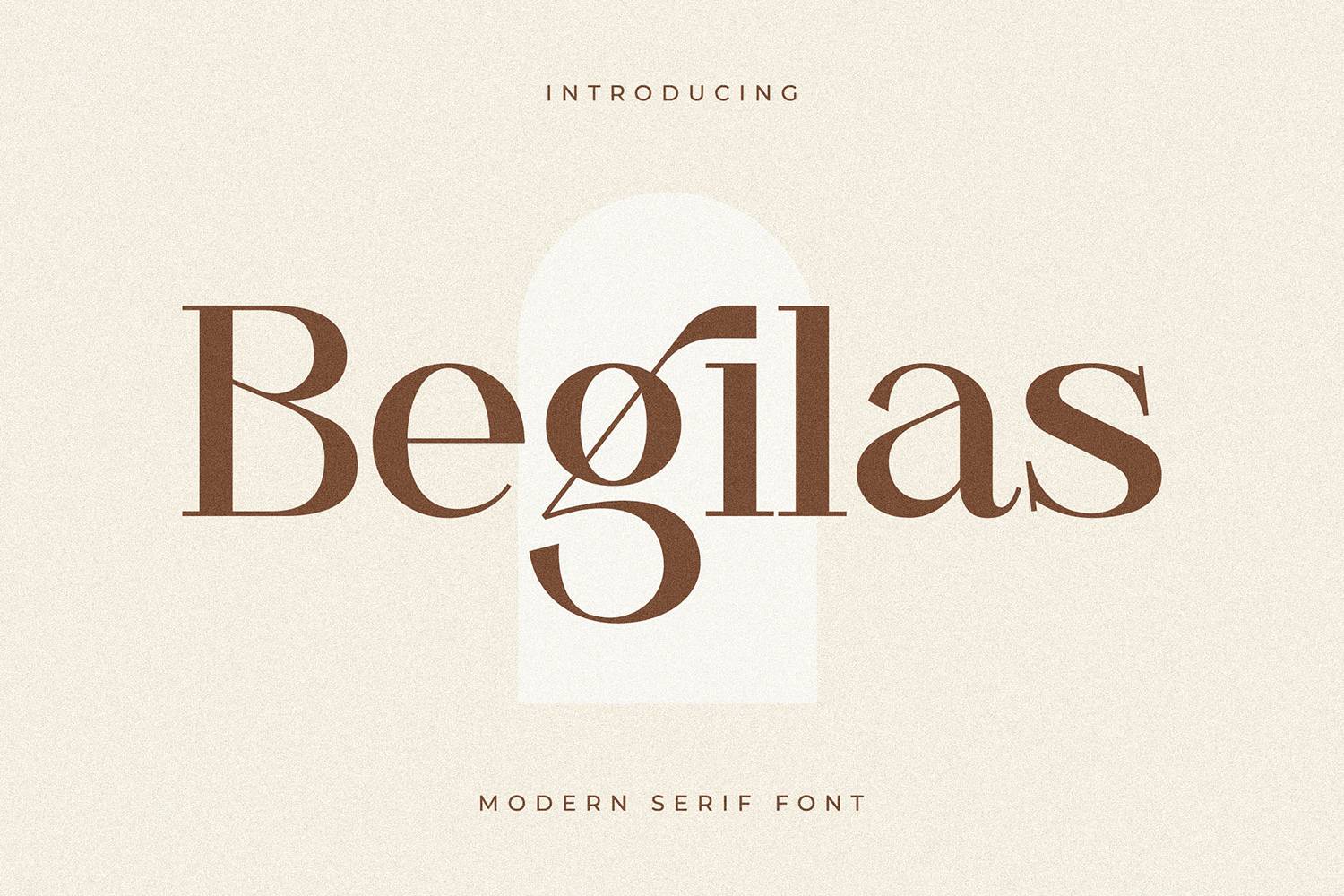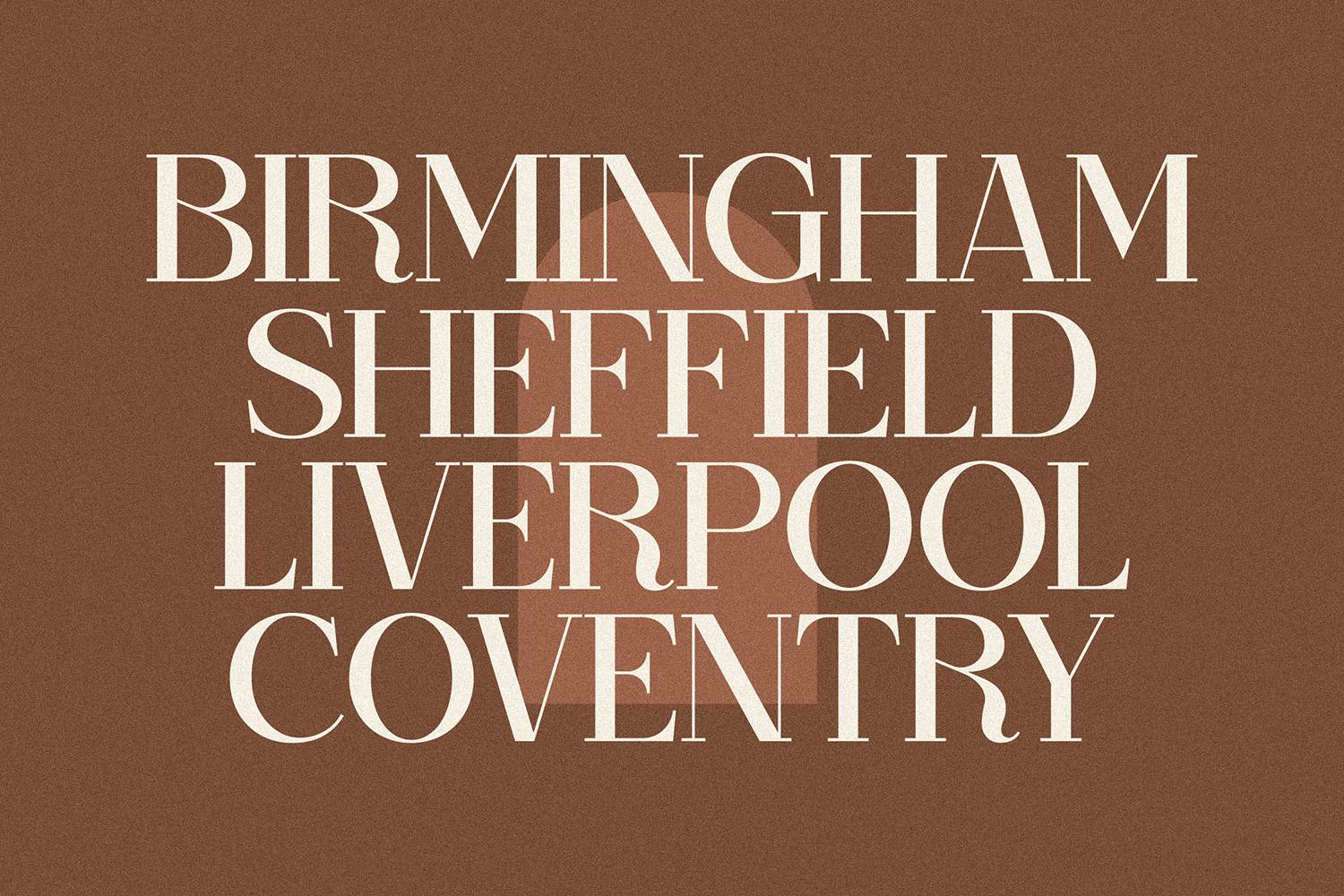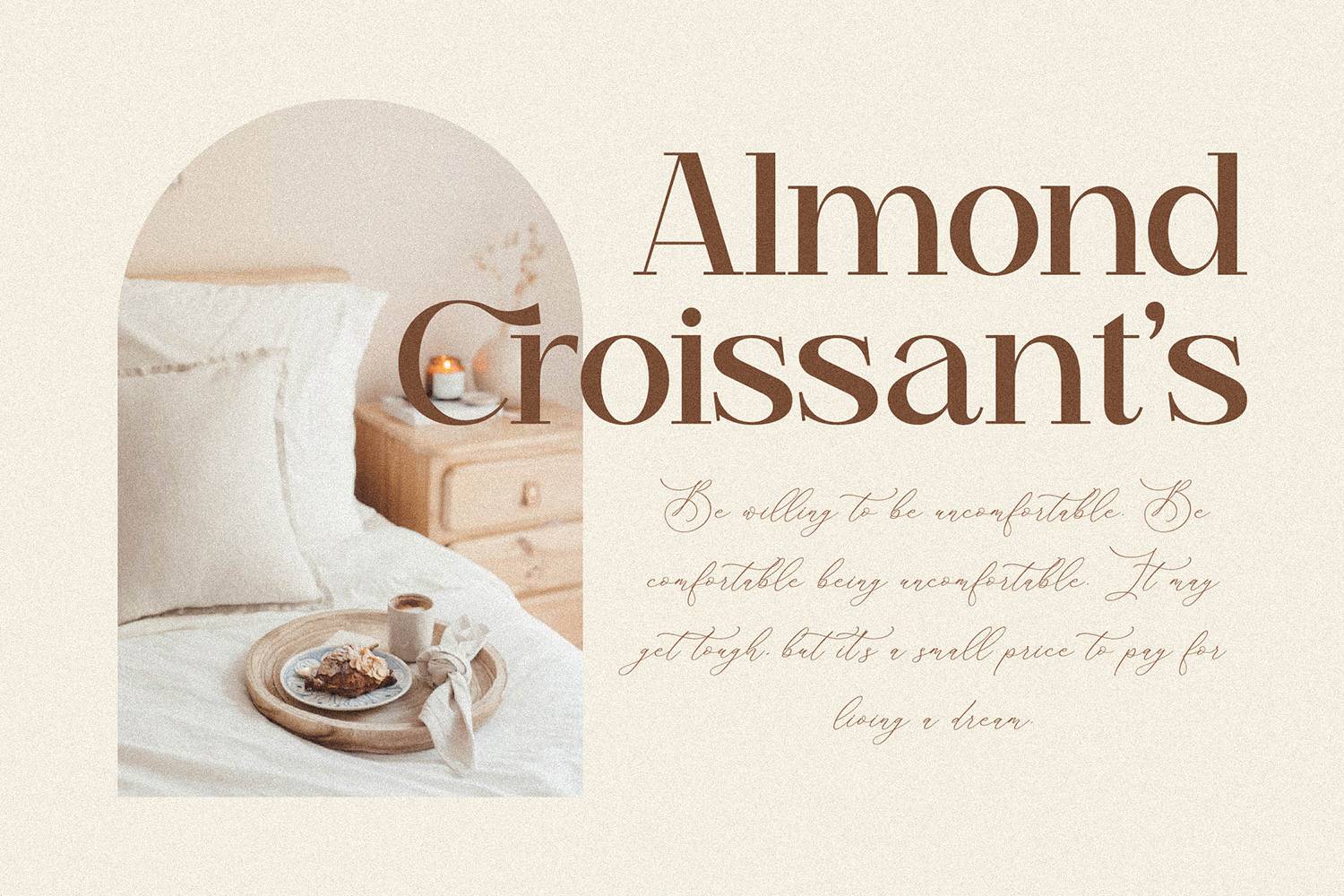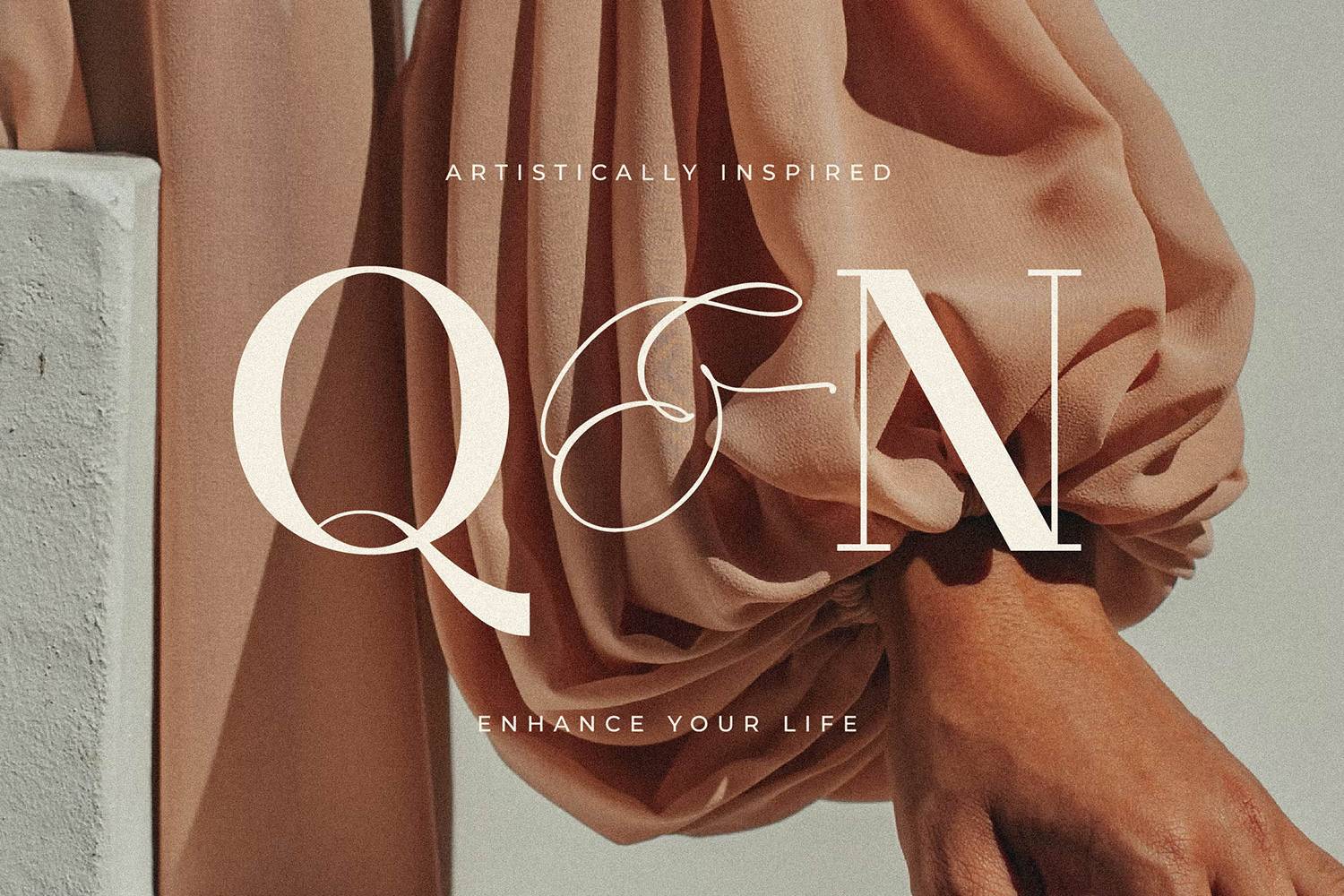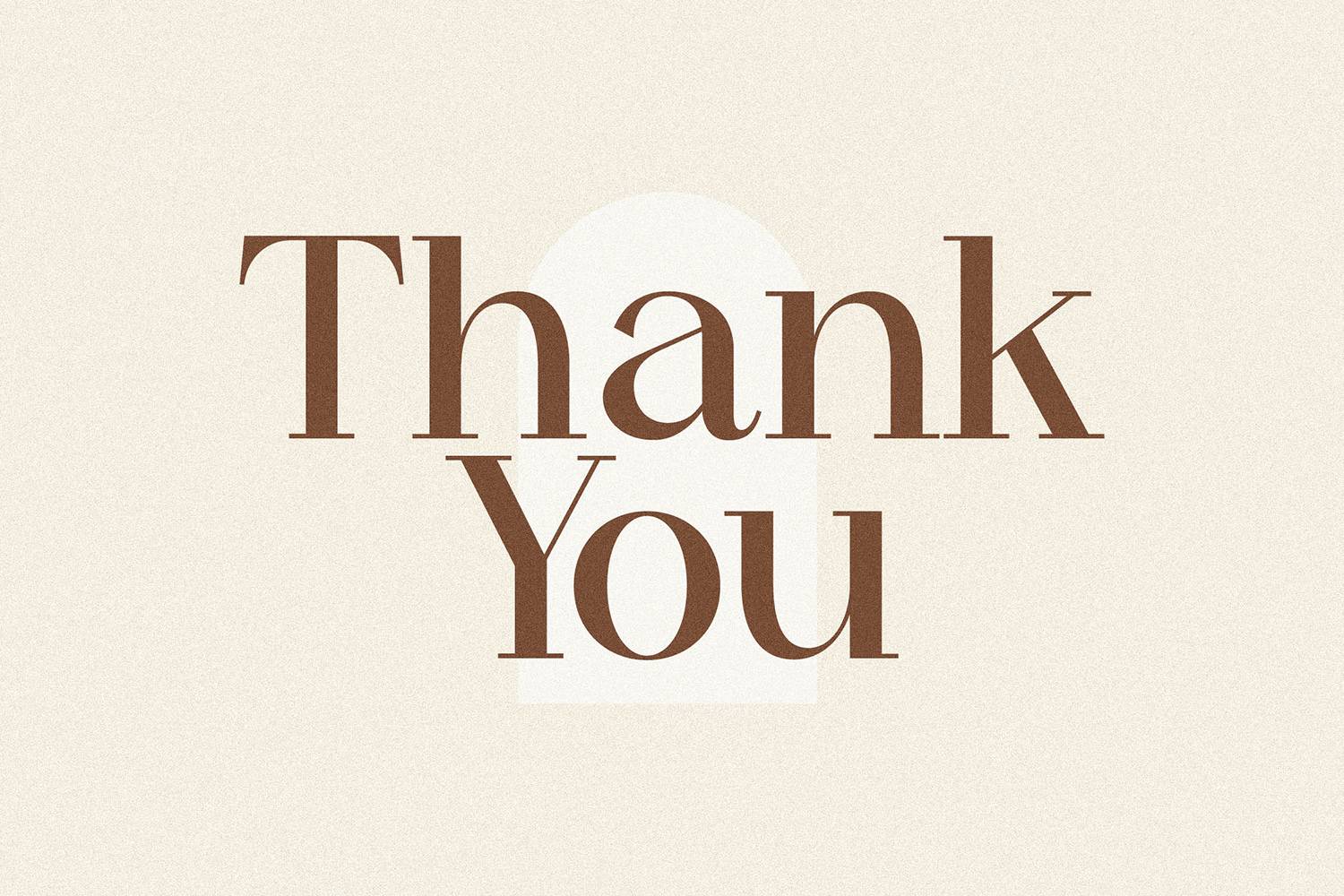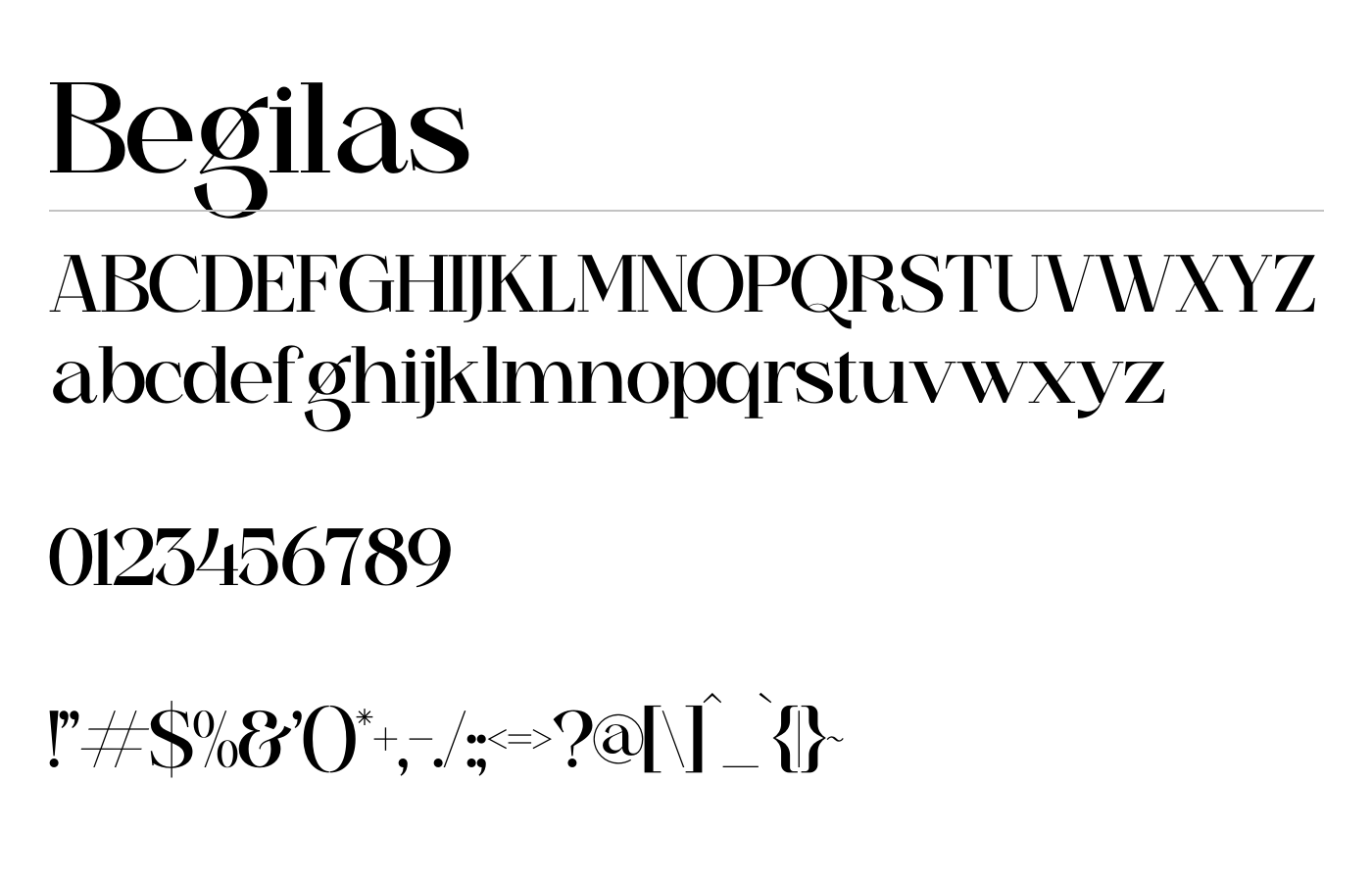
Begilas is a refined serif font that combines high contrast between thick and thin strokes with elegant, slightly condensed letterforms, giving it a sophisticated and modern feel. Its sharp serifs and distinct details, like the single-story ‘g’ and stylish tails, make it ideal for luxury branding, editorial headlines, and upscale design projects where a touch of classic elegance is desired. This font works beautifully in large sizes, making any text appear polished and graceful while maintaining readability.
Begilas Font
About Begilas Font